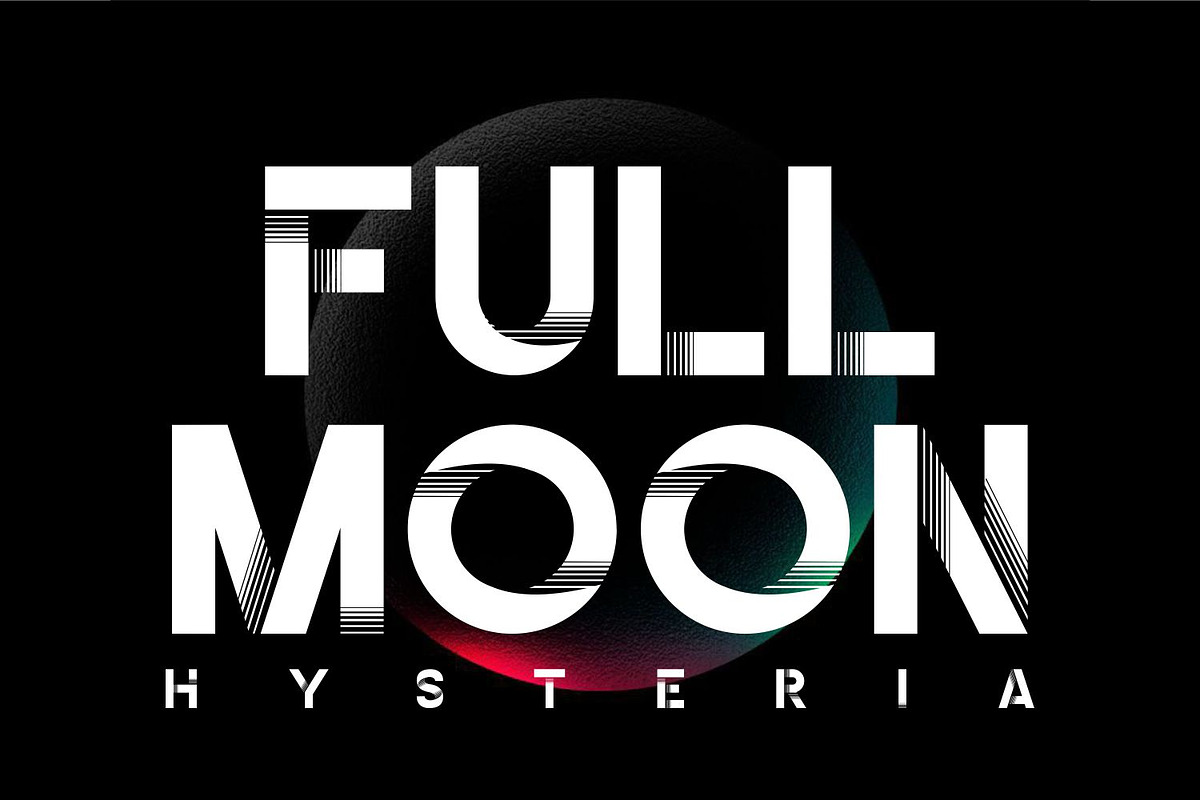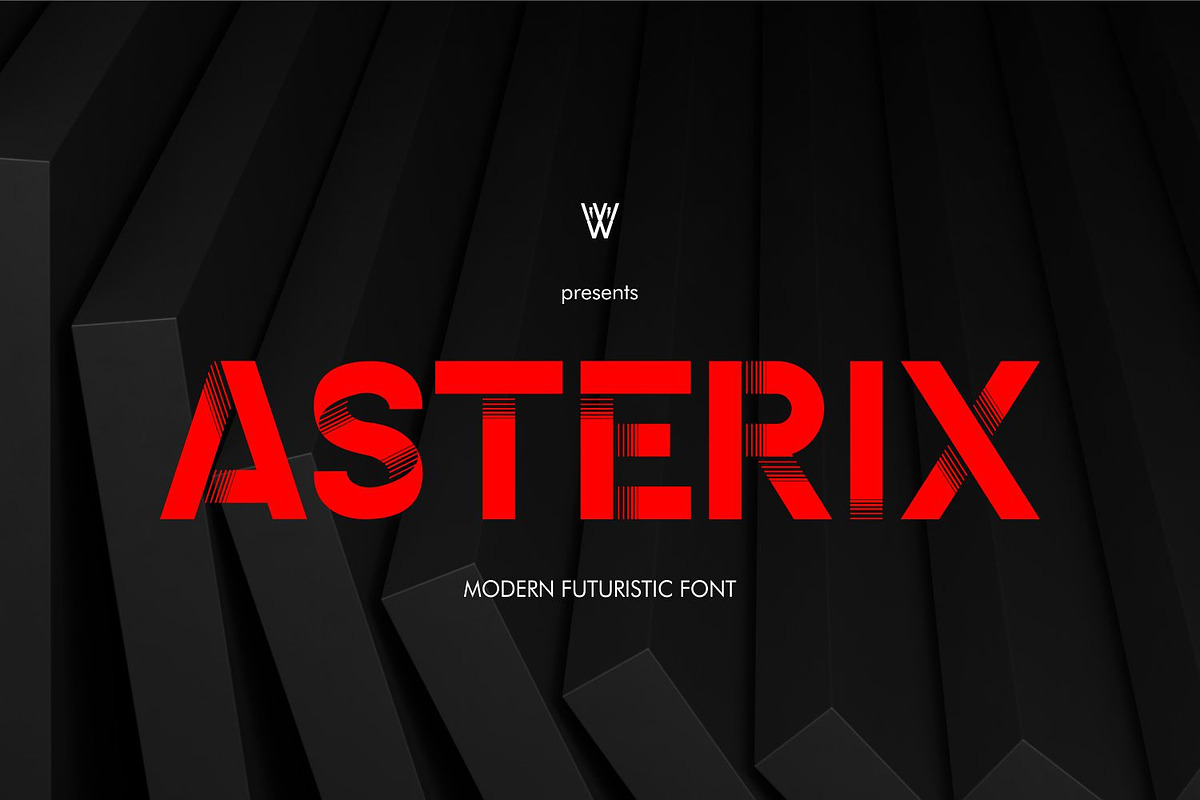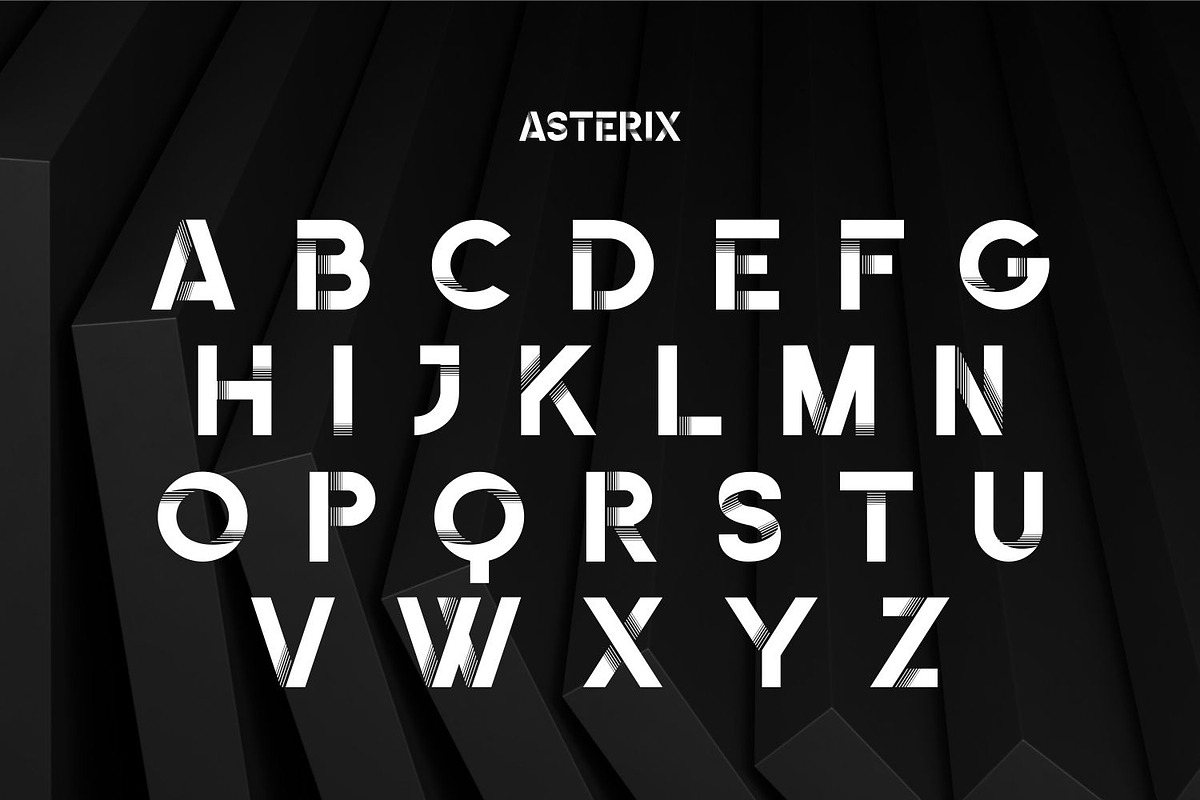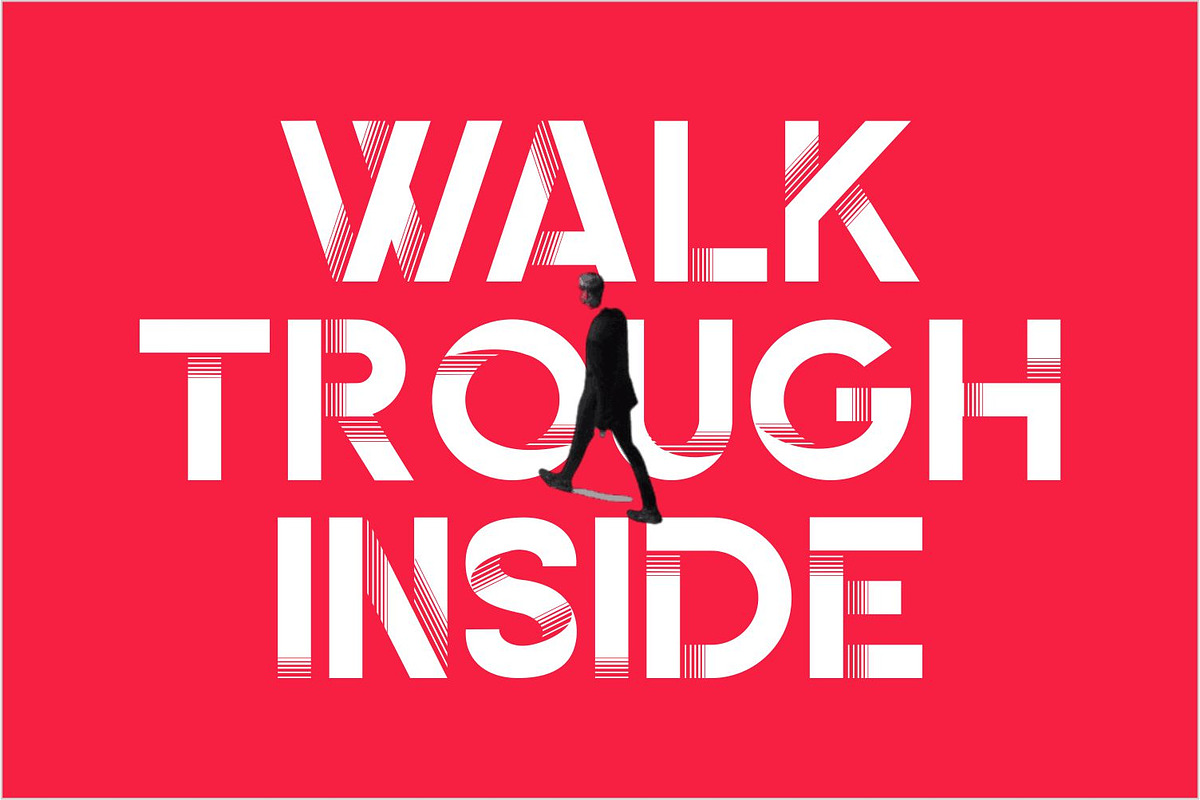
Asterix Font | Futuristic Bold Font
The Asterix Font is a futuristic typeface that pushes the boundaries of design with its innovative and avant-garde style. Inspired by the possibilities of tomorrow, this font features sleek lines, geometric shapes, and bold letterforms that evoke a sense of technology and progress. Whether you’re designing for sci-fi themes, tech startups, or futuristic branding, the Asterix Font adds a touch of modernity and sophistication that captivates the viewer. Its minimalist design and versatility make it perfect for a wide range of digital and print applications. Embrace the future of design with the Asterix Font.